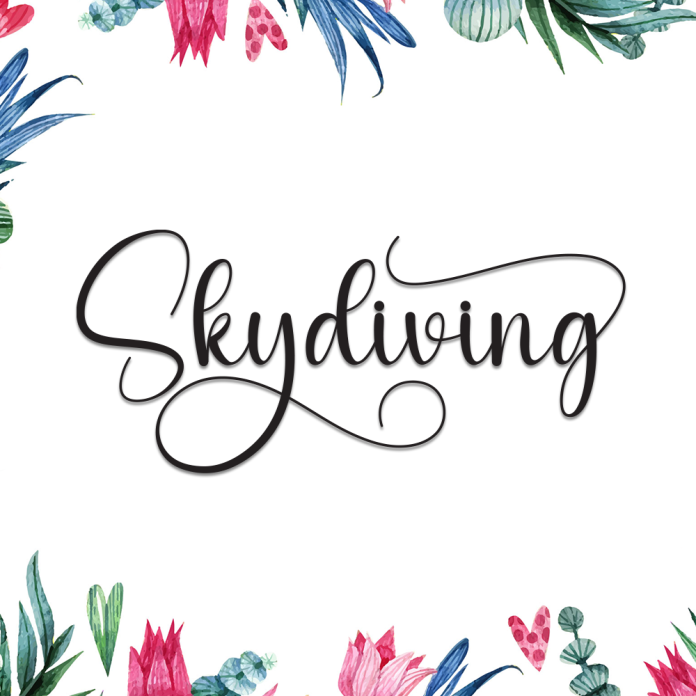
Skydiving is a cheerful and airy handwriting font that feels like a breath of fresh air. With its smooth, flowing strokes and casual charm, it brings a lighthearted and personal touch to any design.
Ideal for greeting cards, quotes, social media posts, and children’s projects, Skydiving adds a sense of freedom and fun, just like its name suggests.
Handwritten style with a playful and relaxed feel
Great for personal branding, invitations, and lifestyle content
Smooth curves and natural letter spacing
Take your designs to new heights with Skydiving – a font that floats with creativity and joy.